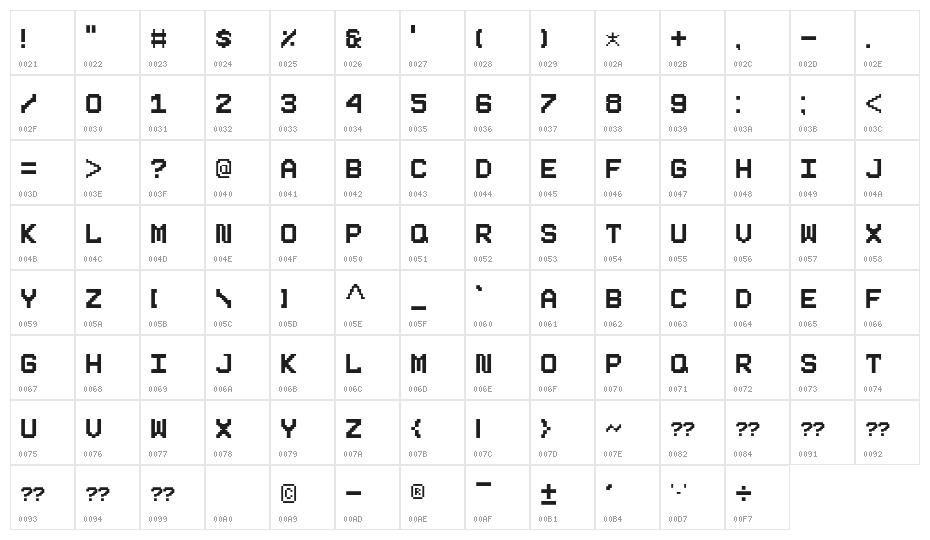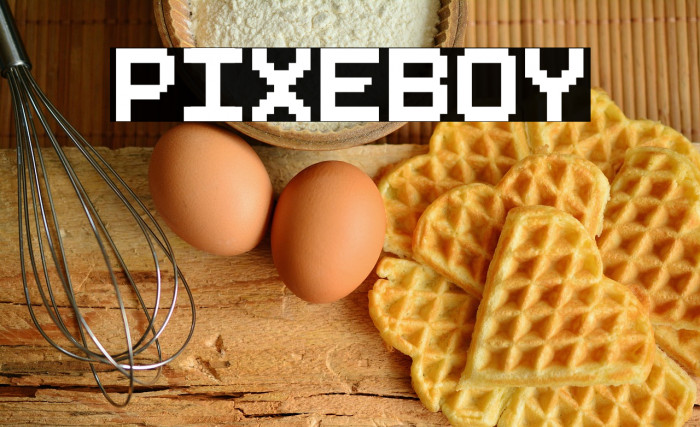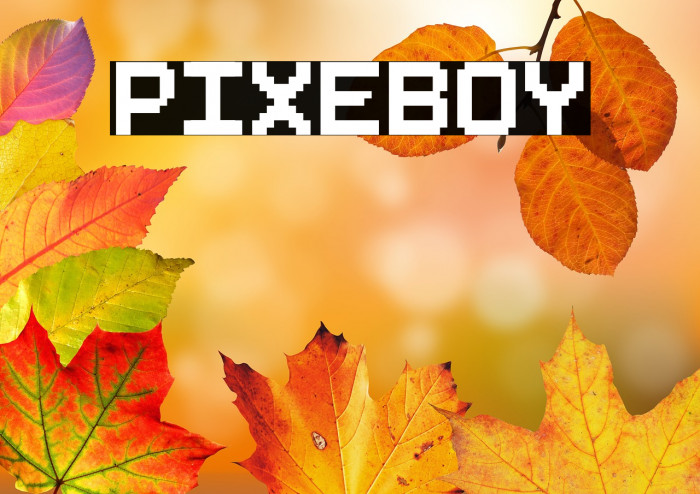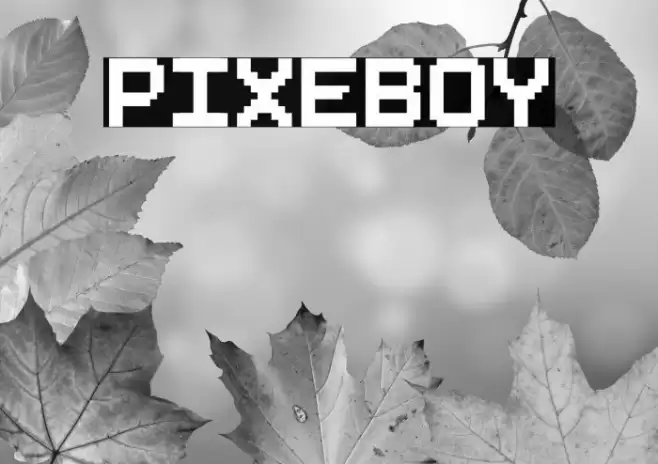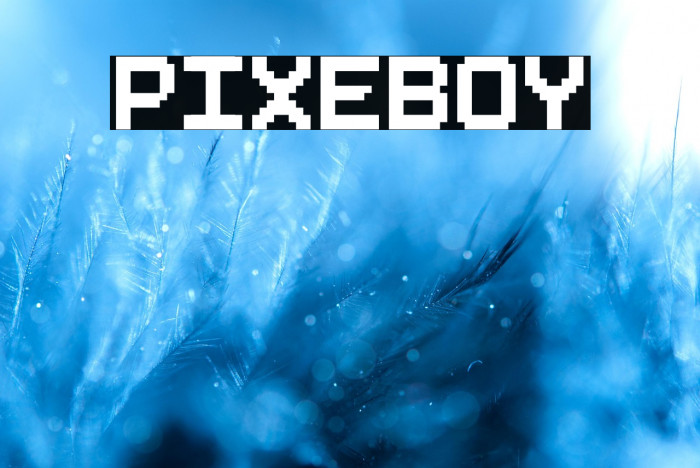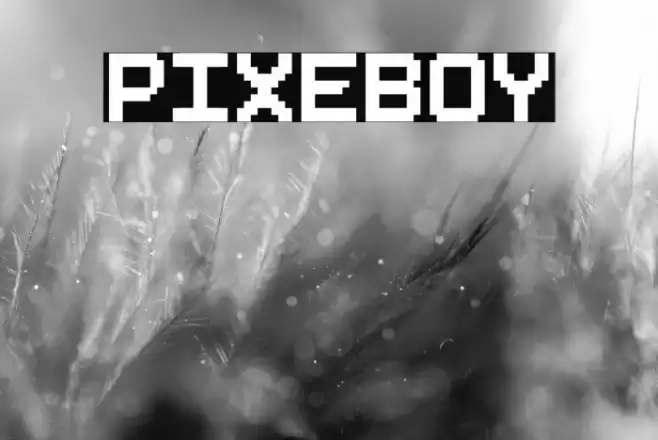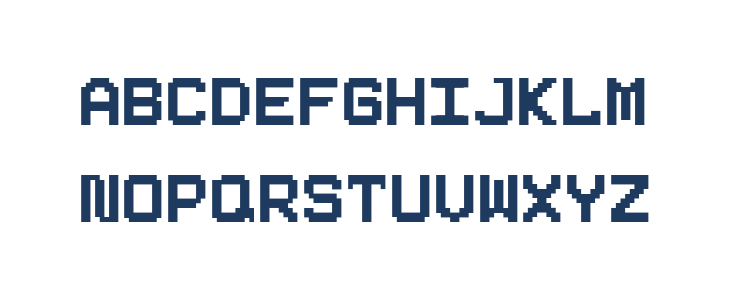
Pixeboy Font
Pixeboy Description
This font features a pixelated, retro style reminiscent of early digital and arcade games. Each character is composed of blocky, square pixels, giving it a distinctly digital appearance. The uppercase and lowercase letters are uniform in width, maintaining a consistent and structured look. Numbers and special characters follow the same pixelated design, ensuring a cohesive aesthetic across all glyphs. This font's nostalgic charm makes it ideal for projects that aim to evoke a sense of vintage technology or gaming culture.
| Use Case | Logos, Headlines, Digital Art |
| Proposed Projects | Ideal for retro video games, digital art projects, tech-themed posters, and nostalgic branding. |